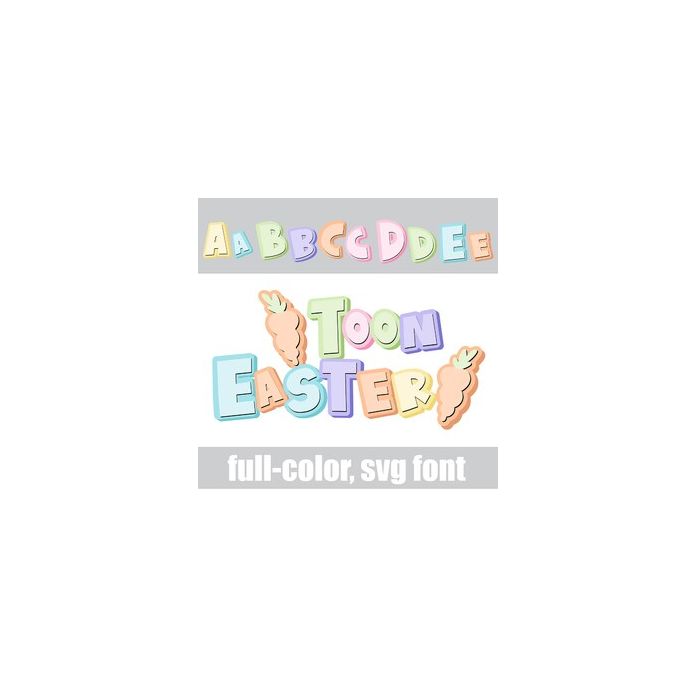
This full-color, cartoon-style font is in a pretty, pastel color palette. Access the carrots by typing the greater than and less than glyphs. There is an alt case w/ additional colors you can access through your system or Silhouette's glyph map.